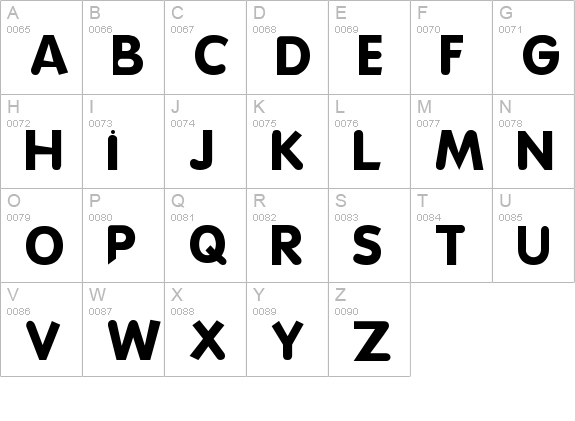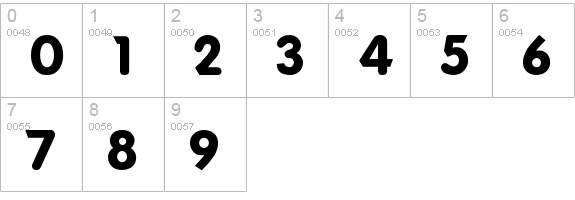
Silly Poo-Poo Font Details
Introducing Silly Poo-Poo font, a whimsical and playful typeface that will bring a touch of joy to any design project. This font is perfect for adding a lighthearted and fun vibe to invitations, posters, greeting cards, and more. Silly Poo-Poo font features quirky letterforms with a hint of silliness, making it an ideal choice for children's book covers or catchy headlines that will capture attention. Whether you're designing for a birthday party or a creative campaign, this font will add a delightful twist to your visuals. But what makes Silly Poo-Poo font even more appealing is that it comes free of charge! Yes, you read that right - this delightful font is freely available to download at FontsMarket.com. With just a few clicks, you can bring this charming typeface into your design arsenal without breaking the bank. So go ahead and let your creativity run wild with Silly Poo-Poo font. Its cheerful and carefree nature will infuse your designs with a sense of whimsy and laughter. Download it today from FontsMarket.com and let the fun begin!